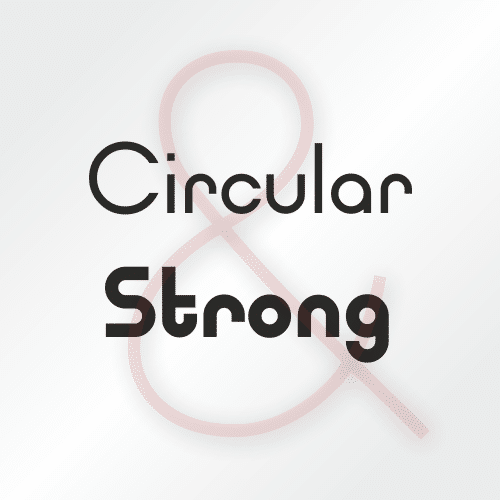
Say hello to Typo Ring Font is a timeless sans-serif inspired by vintage ski + travel posters, making them useful for a variety of display applications: print, web, branding, advertising, magazines, products, packaging, labels, invitations, stationery, fashion, etc.